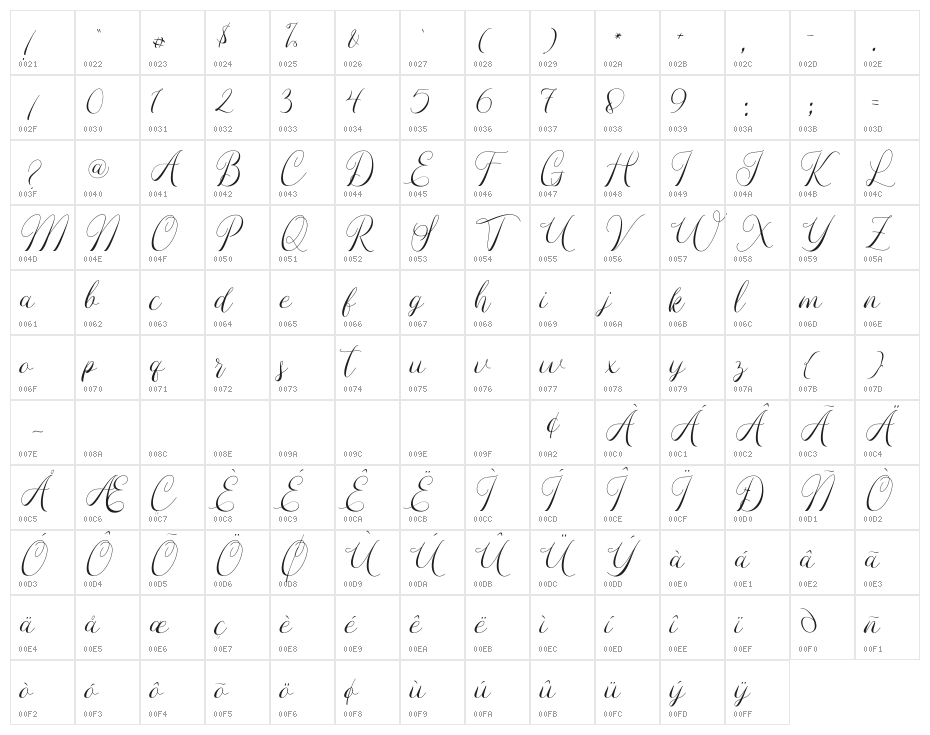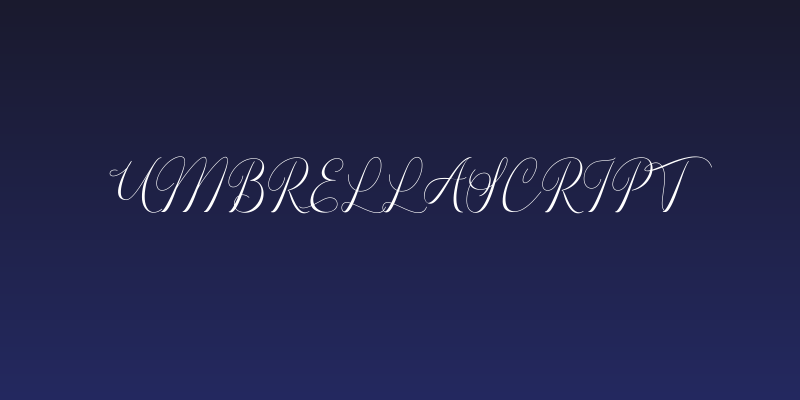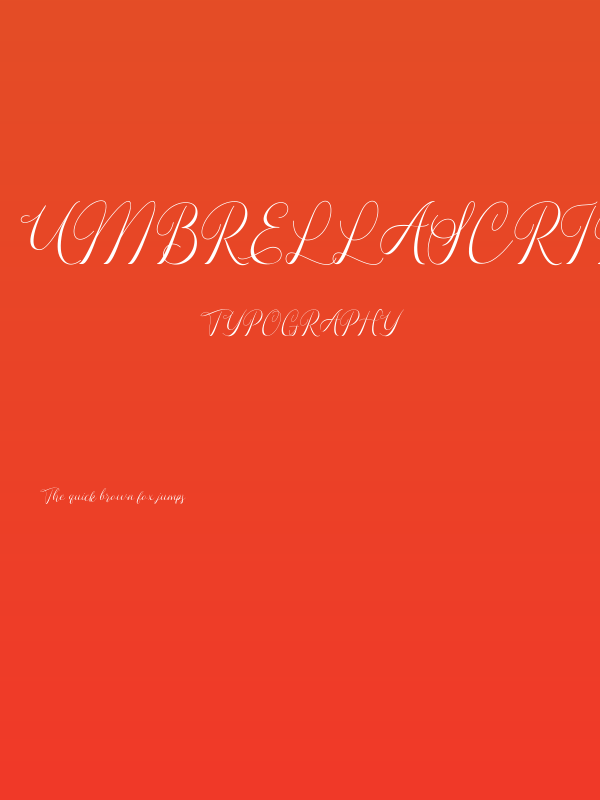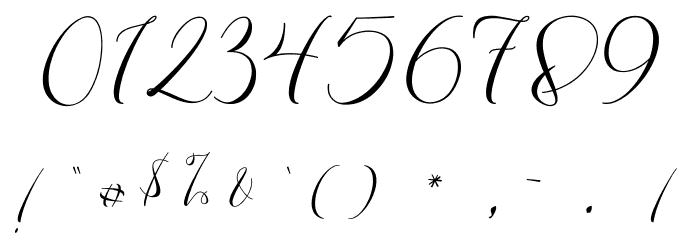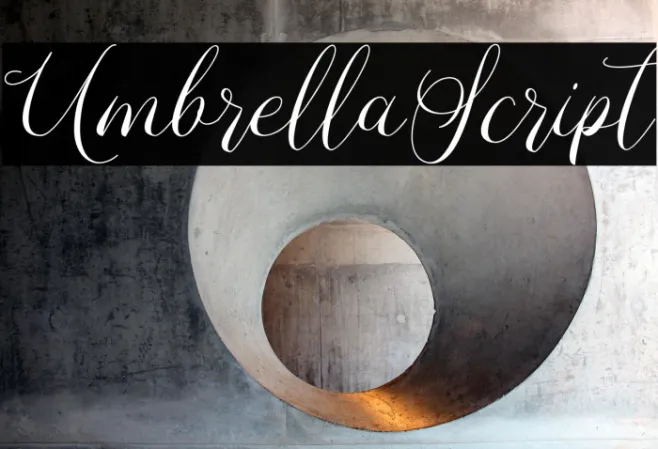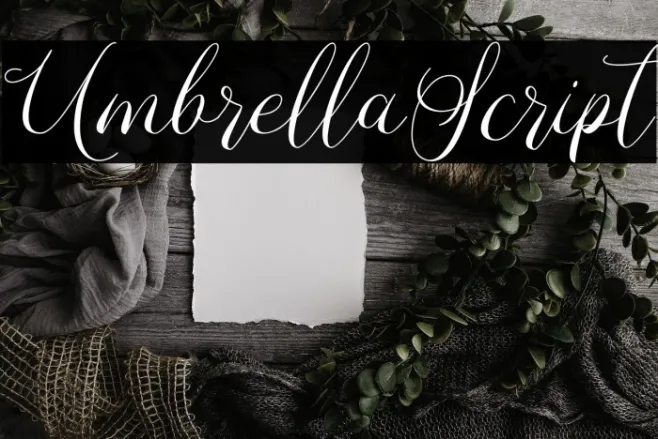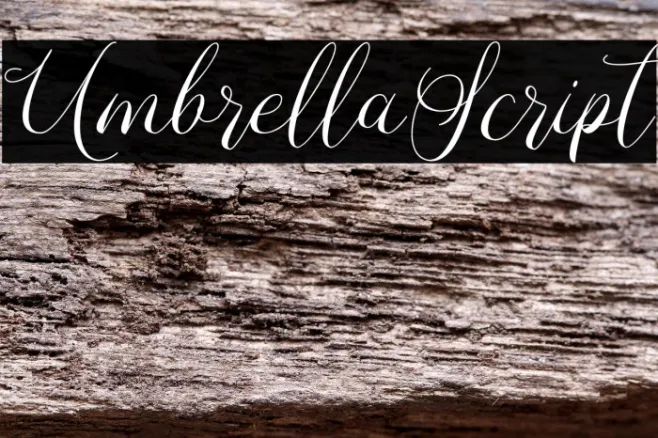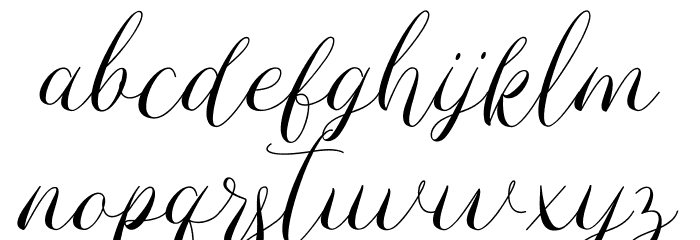
UmbrellaScript Font
UmbrellaScript Description
This elegant script font features flowing, interconnected letters that exude a sense of sophistication and grace. The uppercase letters are tall and slender, with delicate loops and flourishes that add a touch of whimsy. The lowercase letters maintain a consistent flow, with smooth curves and subtle variations in stroke width that enhance readability. The numerals are stylish and complement the overall aesthetic, while the special characters are thoughtfully designed to match the font's refined style. This font is perfect for projects that require a touch of elegance and class.